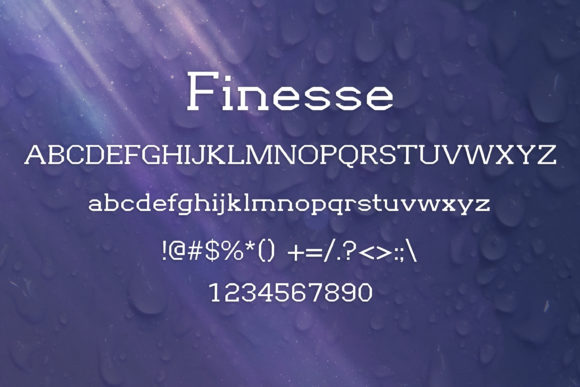
Introduction to Finesse Font
Finesse features wonderful serifs that give this display font an editorial vibe.
Fall in love with its unique charm .
Key Features of Finesse Font
Why Choose Finesse Font?